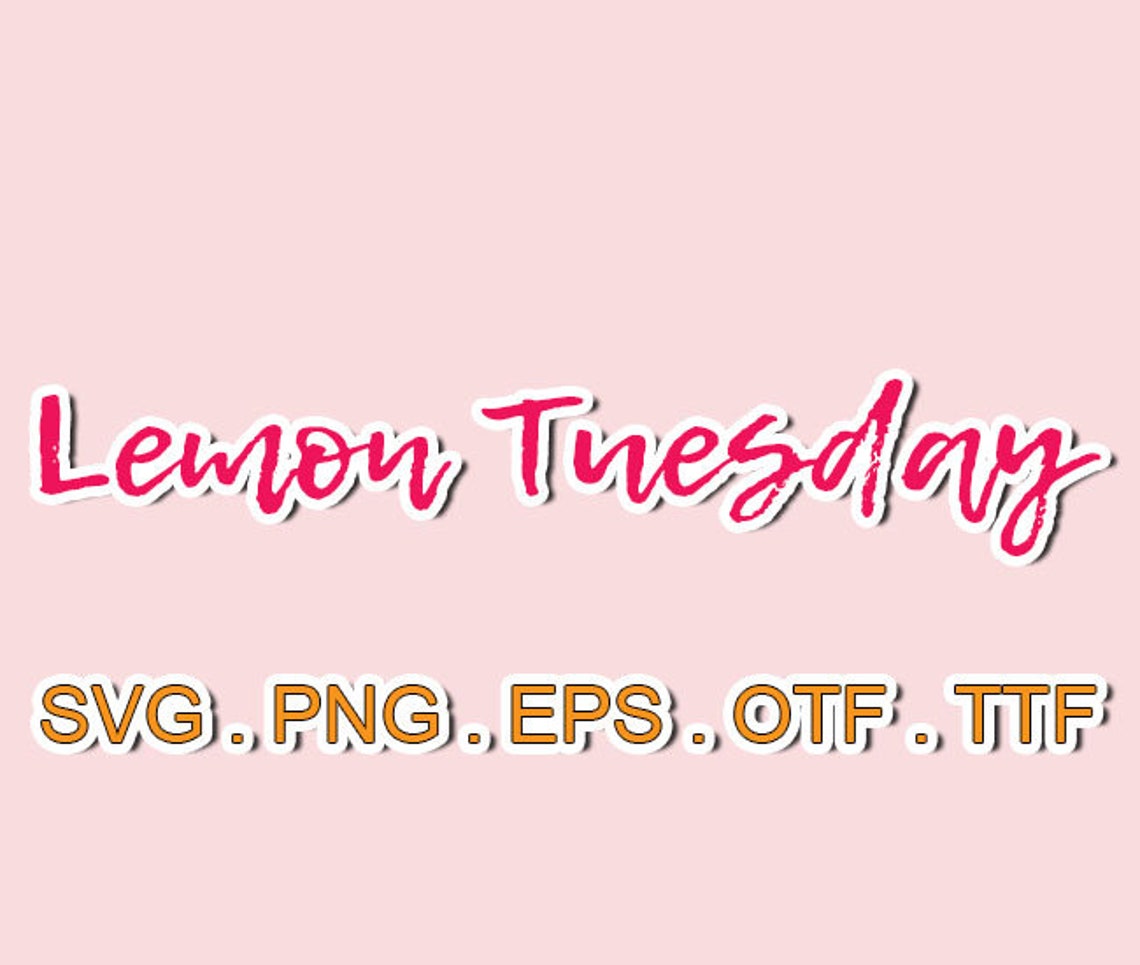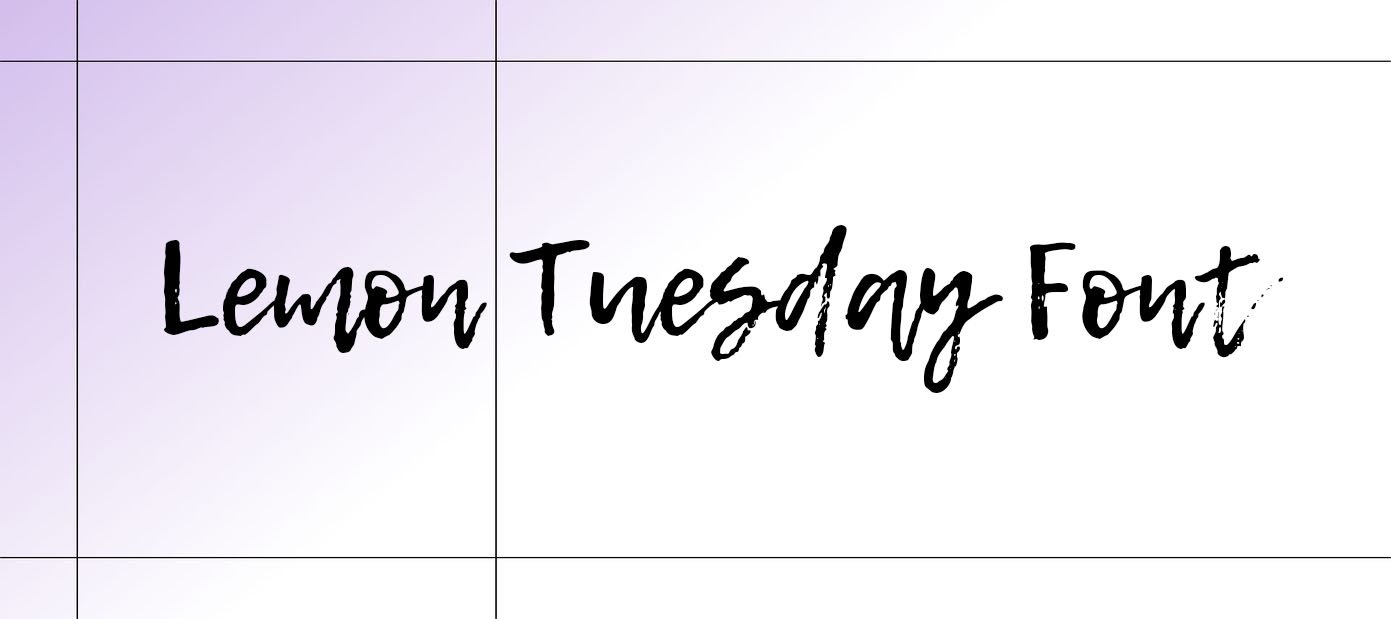
Lemonade Tuesday Font . looking for lemon tuesday font designed by jovanny lemonad? lemon tuesday font is a stylish, unique, and cheerful handmade bold script typeface that brings fun and flair to your design. Download font free at fontriver. download lemon tuesday font · free for commercial use ·. licensed for commercial and personal use. Click here to create a custom image with your own text. get your very own free download of the lemon tuesday font, designed and created by jovanny lemonad.